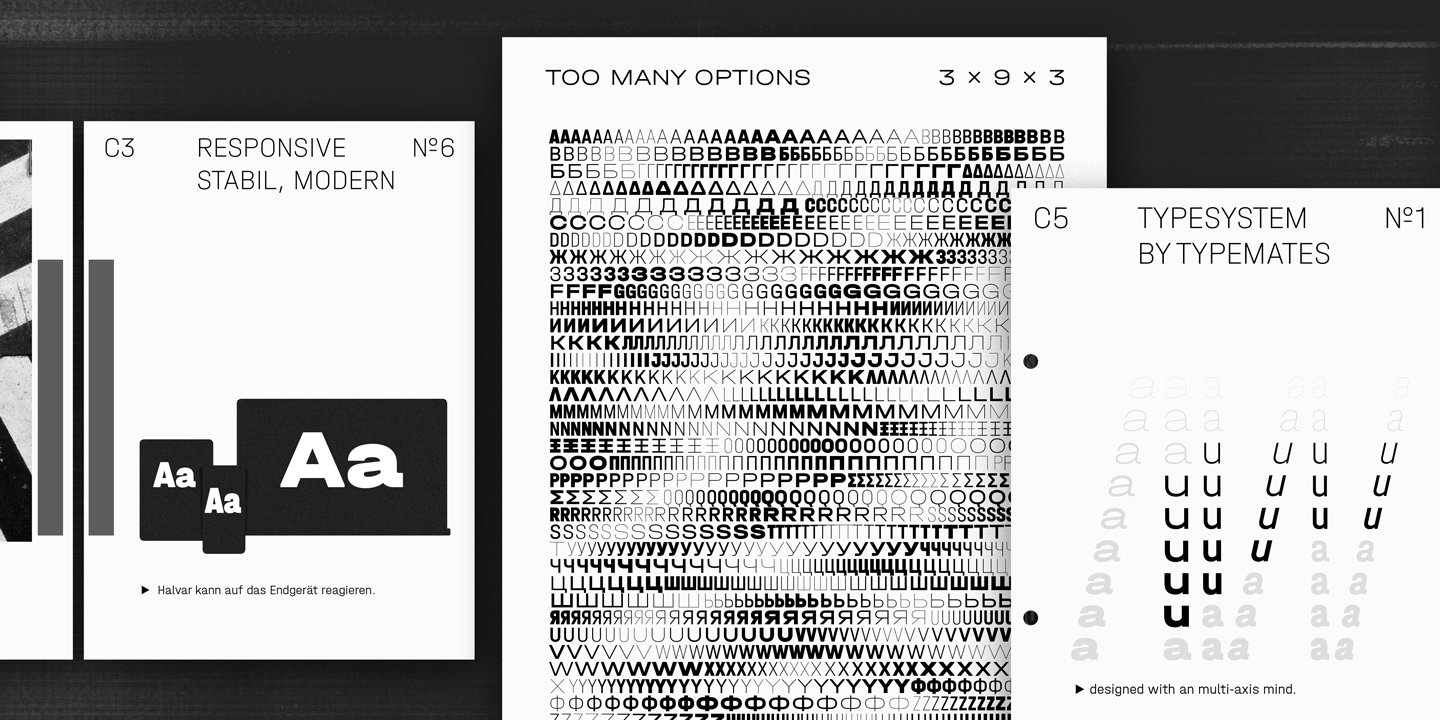
Halvar, a German engineered type system that extends to extremes. With bulky proportions and constructed forms, Halvar is a pragmatic grotesk with the raw charm of an engineer. A type system ready to explore, Halvar has 81 styles, wide to condensed, hairline to black, roman to oblique and then to superslanted, structured into three subfamilies: the wide Breitschrift, regular Mittelschrift and condensed Engschrift. Designed to be as adaptable in application as it is steady in appearance, this spectrum makes Halvar as ideal for complex corporate identity solutions as it is for particular ones. For industrial duties, a stencil display version is also available. Halvar is not only built to be flexible, but technical. Apart from the SuperSlanted, all its font styles are multiplexed—a word in one Halvar’s roman or italic widths will occupy the same space regardless of weight—allowing for fine work in annual reports, interface design, or anywhere space is at a premium and the demands of reflow, rollover and animation need to be considered. With a character set that includes extended Latin, Greek and Cyrillic and supports more than 190 languages, Halvar’s styles have German names and multilingual ambitions. Perfect for cross-market branding. To ensure TypeMates’ usual high standards throughout all glyphs, the Cyrillic and Greek letterforms were developed in consultation with native readers. Needless to say, a font system this comprehensive is shipped with tabular figures, circled highlights, superscripts, as well as fractions. Alternate characters let Halvar toggle between two additional stylistic sets: one plain and functional, another distinct and digital. With manual TrueType hinting and special attention to text styles, a stable x-height, contemporary proportions and a robust design, Halvar is optimised for screen performance and ready to meet any challenge in user interface typography.